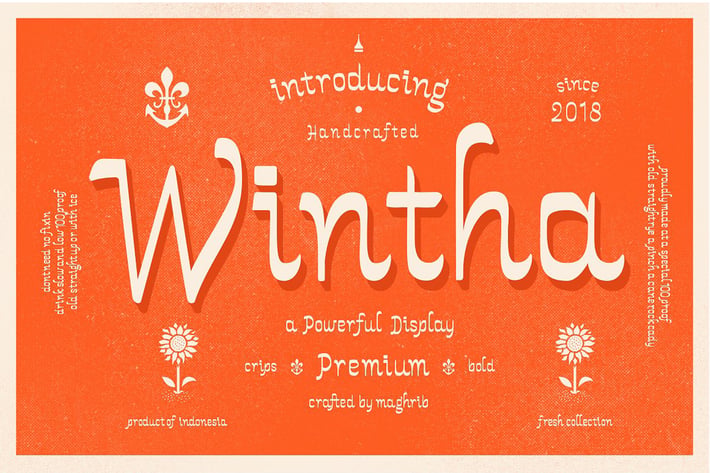
Wintha Typeface
Wintha Typeface , gorgeous headlines and elegant designs with a vintage flair. Wintha Typeface contrasting lines and curved terminals give a sleek, elegant look to logos, holiday cards, wedding invitations, quotes, advertisements, and more. Wintha Typeface is a versatile typeface that's full of character and one you'll come back to time and again. Create something beautiful today with Wintha Typeface.